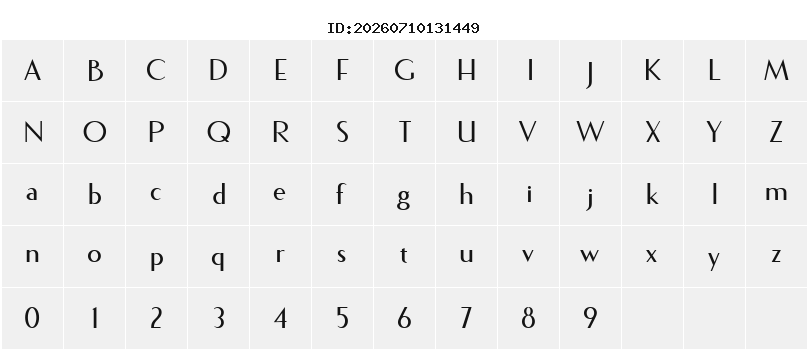
• Font Name: Fecske
• Full Font Name: Fecske
• PostScript Name: Fecske
• Designer: Roland Huse
• Manufacturer: Roland Huse
About Fecske.ttf
Fecske.ttf is a modern, elegant sans-serif font designed for ultimate readability and visual harmony. Perfect for branding, headlines, web design, and print materials.